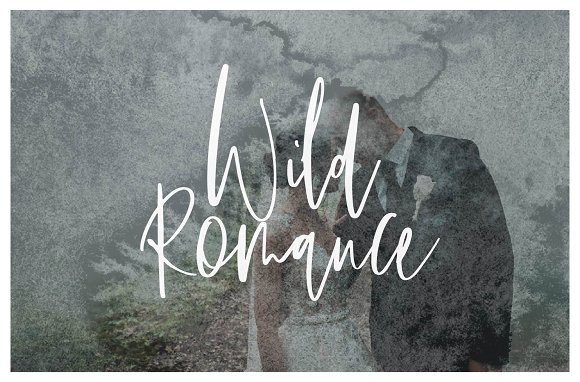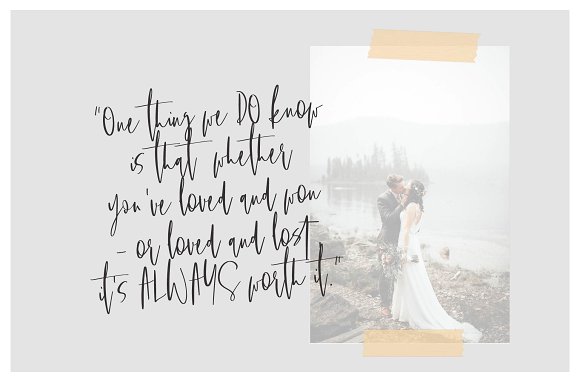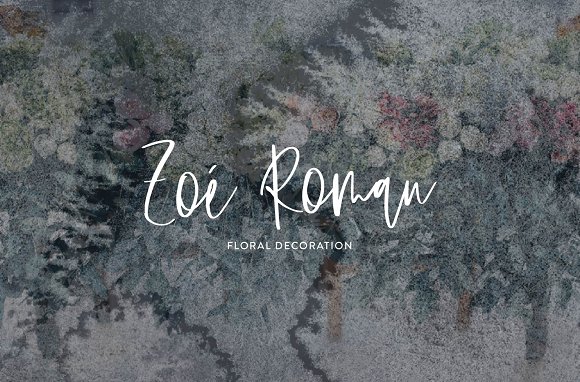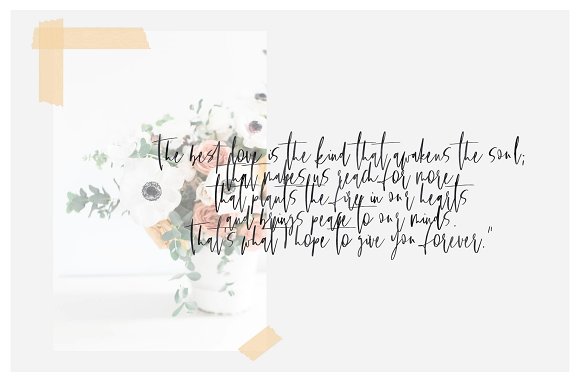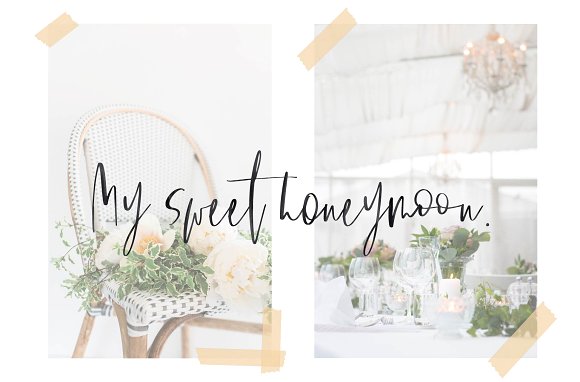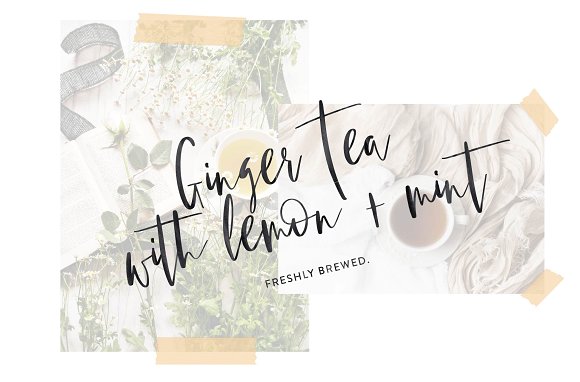
Wild Romance Script Font
“Wild Romance” is a handwritten signature typeface that comes in two different versions. Its romantic handwritten look makes it the perfect fit for feminine logos, printed quotes, wedding invitation cards, social media headers, product packaging and a lot more!